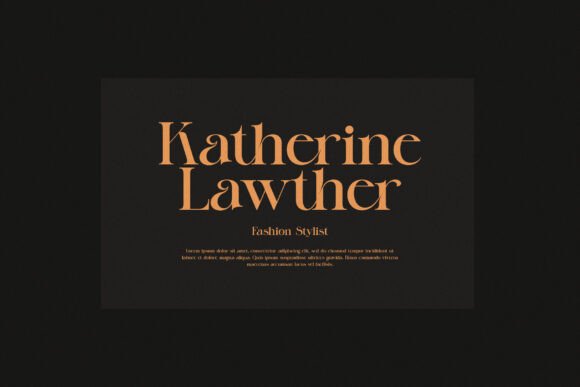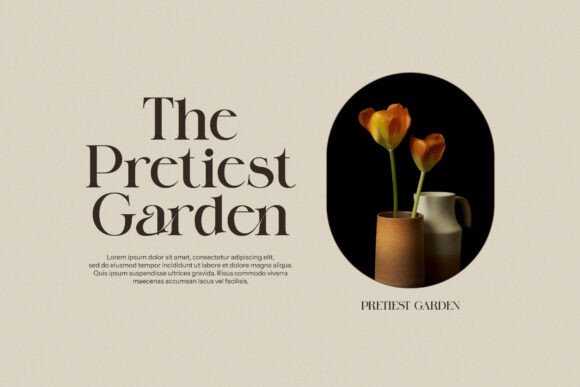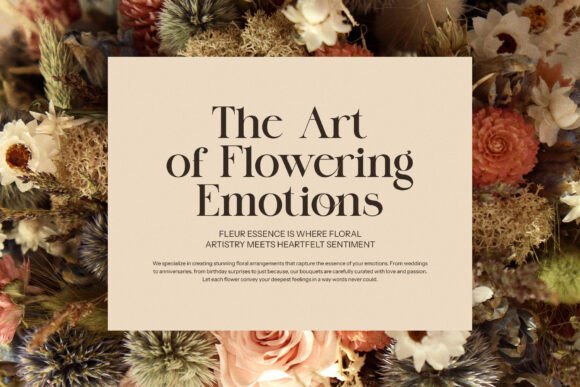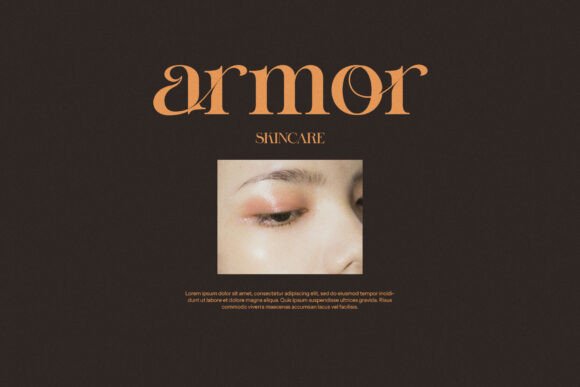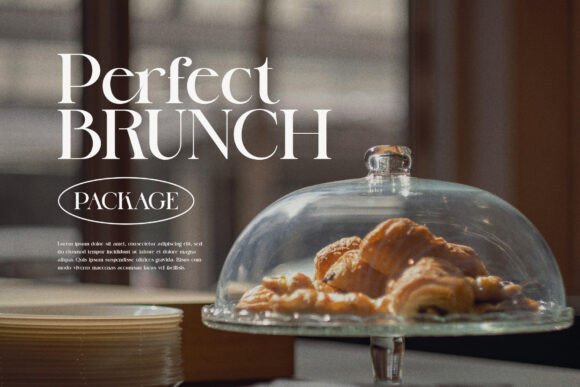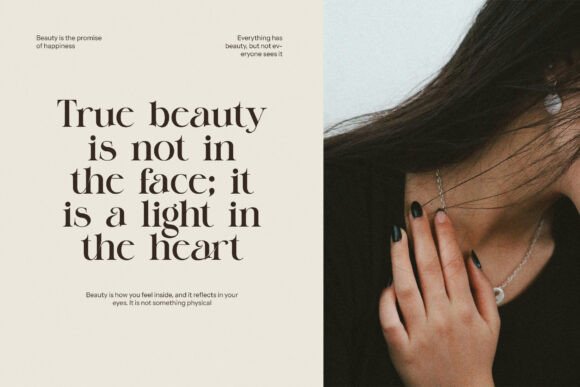
Introduction to Galgin Font
Imagine you’re a designer tasked with creating a luxury brand’s new logo, and you want to make a lasting impression. You’re browsing through your favorite design resources, searching for the perfect font to convey sophistication and elegance. And then, you stumble upon it – the Galgin Elegant Serif Font. Its refined curves and sharp serifs immediately catch your eye, and you can’t help but feel a sense of excitement and possibility.
As a designer, you know how valuable a high-quality font can be in elevating your creative project. The right font can make all the difference in communicating your message and resonating with your audience. And that’s exactly what the Galgin Font offers – a timeless and versatile design resource that’s perfect for a wide range of applications, from websites and magazines to product packaging and fine arts.
Key Features of Galgin Font
- High-quality, unique design suitable for creative projects
- Features a transparent background, allowing for seamless integration into any design
- Designed to be scalable, with a resolution of 300 DPI, making it suitable for use in both print and digital projects
- Includes a range of characters, including Latin and Cyrillic scripts, making it a versatile design resource
- Perfect for use in creative projects, such as logos, branding materials, and advertising campaigns
Honest Review: Galgin Font
I recently had the chance to work with the Galgin Font for a creative project, and I must say, it was a pleasant experience. The font is a high-quality design resource that can add a unique touch to any project.
What works well: ✨ The Galgin Font has a transparent background, making it easy to layer and manipulate in design software. The font is also highly customizable, allowing designers to adjust the style to fit their specific needs.
Limitations: ⚠️ While the Galgin Font is a great resource, I did find that it can be a bit difficult to read at smaller font sizes. Additionally, the font may not be suitable for all types of projects, particularly those requiring a more traditional or formal tone.
Overall, I was impressed with the Galgin Font and would recommend it to designers looking for a unique and high-quality design resource. With a little experimentation and adjustment, the font can add a lot of value to a creative project.
- Transparent background for easy manipulation
- Customizable style options
Tips for Getting the Most Out of Galgin Font
Use Galgin Font on a transparent background to add a unique touch to your designs. Experiment with different font sizes and colors to create a visually appealing effect. Consider using Galgin Font as a design resource for your next creative project.
Galgin Font is perfect for creating eye-catching titles, headings, and body text for your website, social media, or print materials. It’s also great for use in presentations, reports, and other business documents.